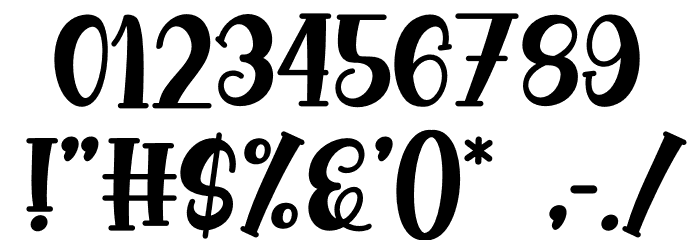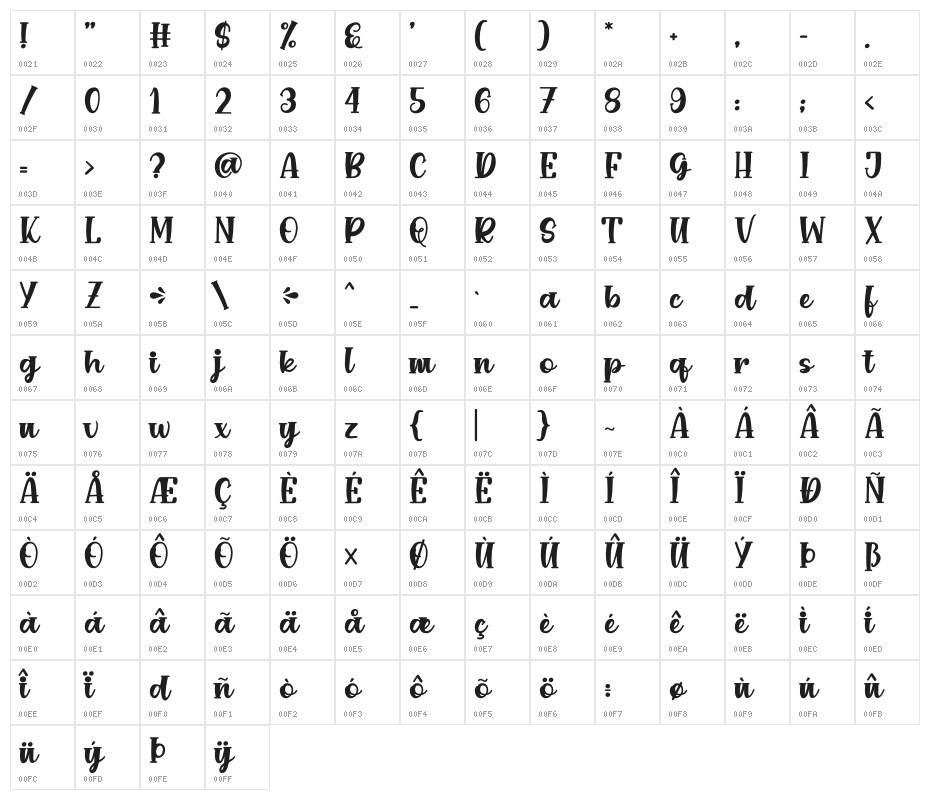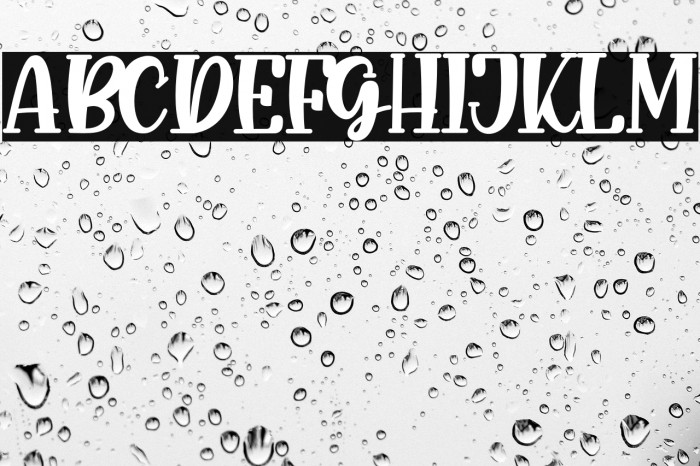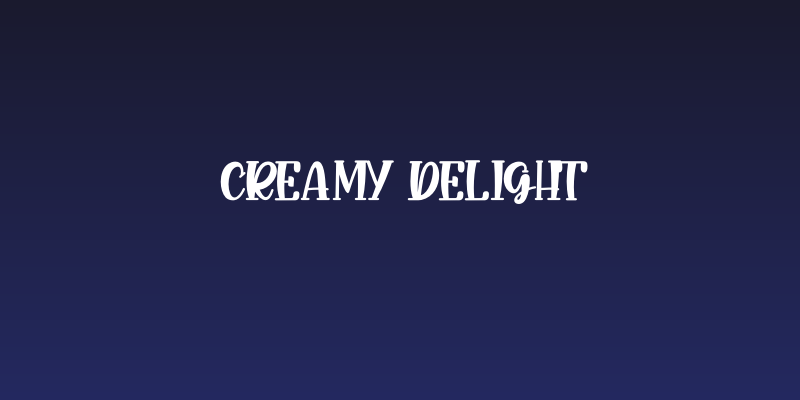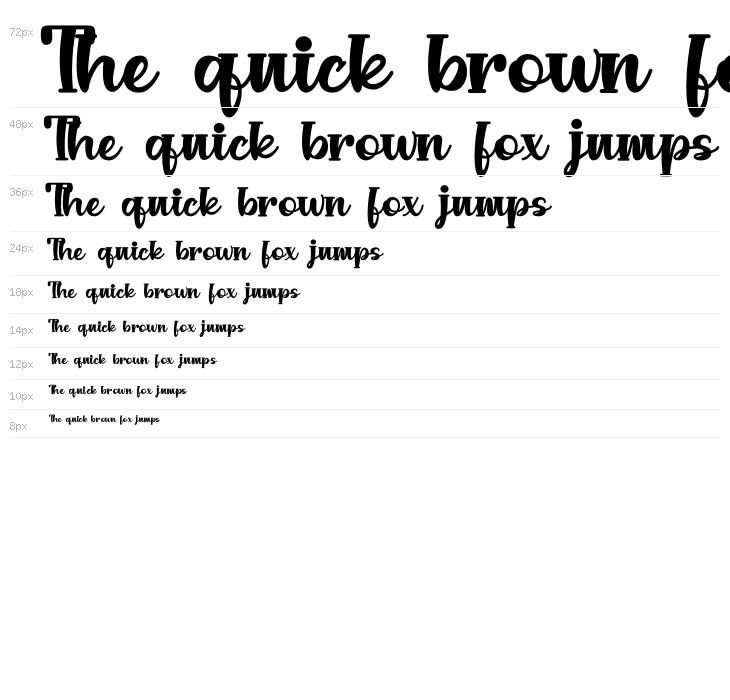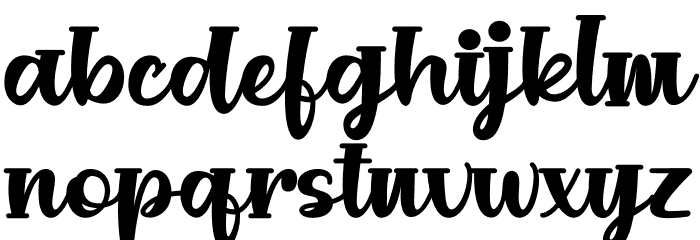
CREAMY Delight Font
CREAMY Delight Description
This font features a playful and whimsical design, characterized by its bold and flowing script style. The uppercase letters exhibit a strong presence with their thick strokes and slight slant, while the lowercase letters maintain a consistent flow with smooth curves and loops. The numerals are equally bold, ensuring readability and a cohesive look. Special characters are designed to match the overall style, adding a touch of flair. The font's unique charm makes it suitable for creative and expressive projects.
| Proposed Projects | Ideal for branding, packaging, greeting cards, and playful invitations. |